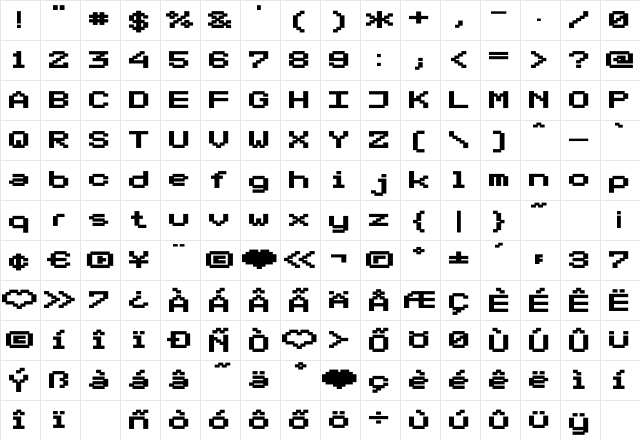
DS VDOTXT2 Regular
Design Context for DS VDOTXT2
DS VDOTXT2 is rooted in pixel-grid construction, making it a natural fit for game UI, retro computing aesthetics, and digital nostalgia projects.
Pro Tip: Use DS VDOTXT2 at sizes that align with its pixel grid for the sharpest rendering - scaling to non-integer multiples can introduce unwanted blur.